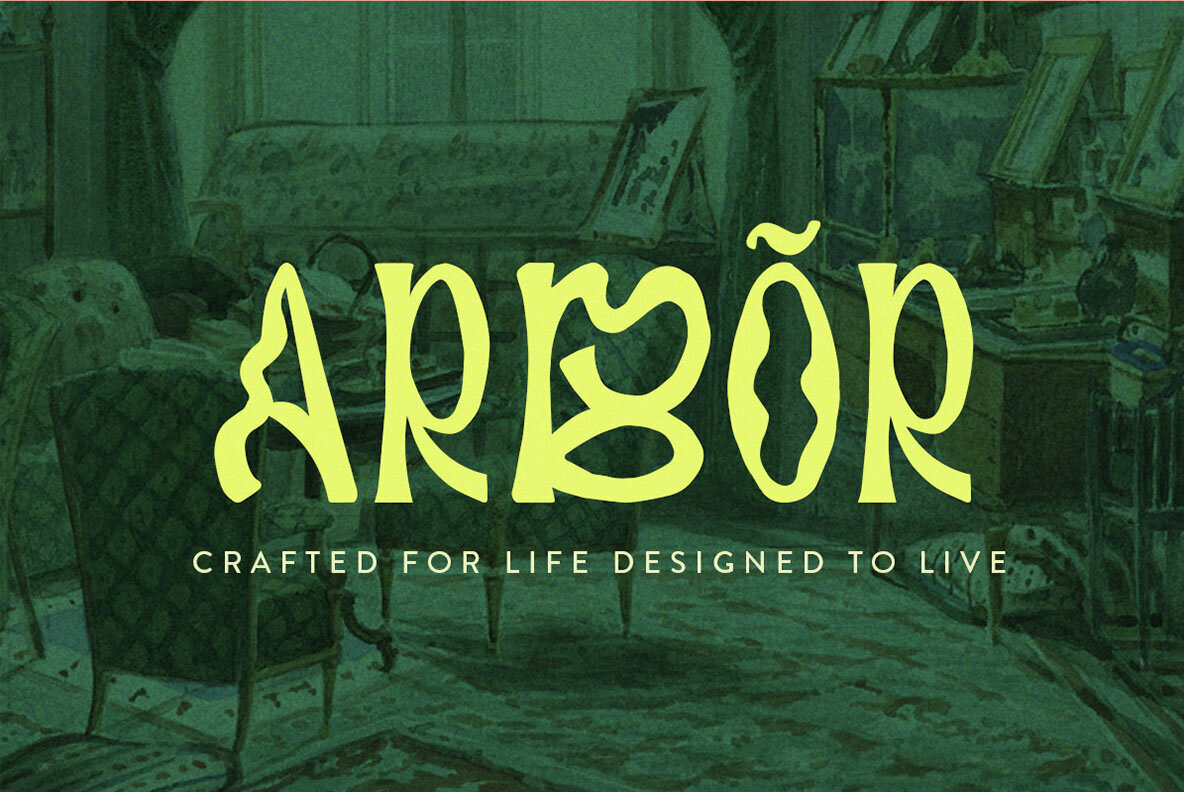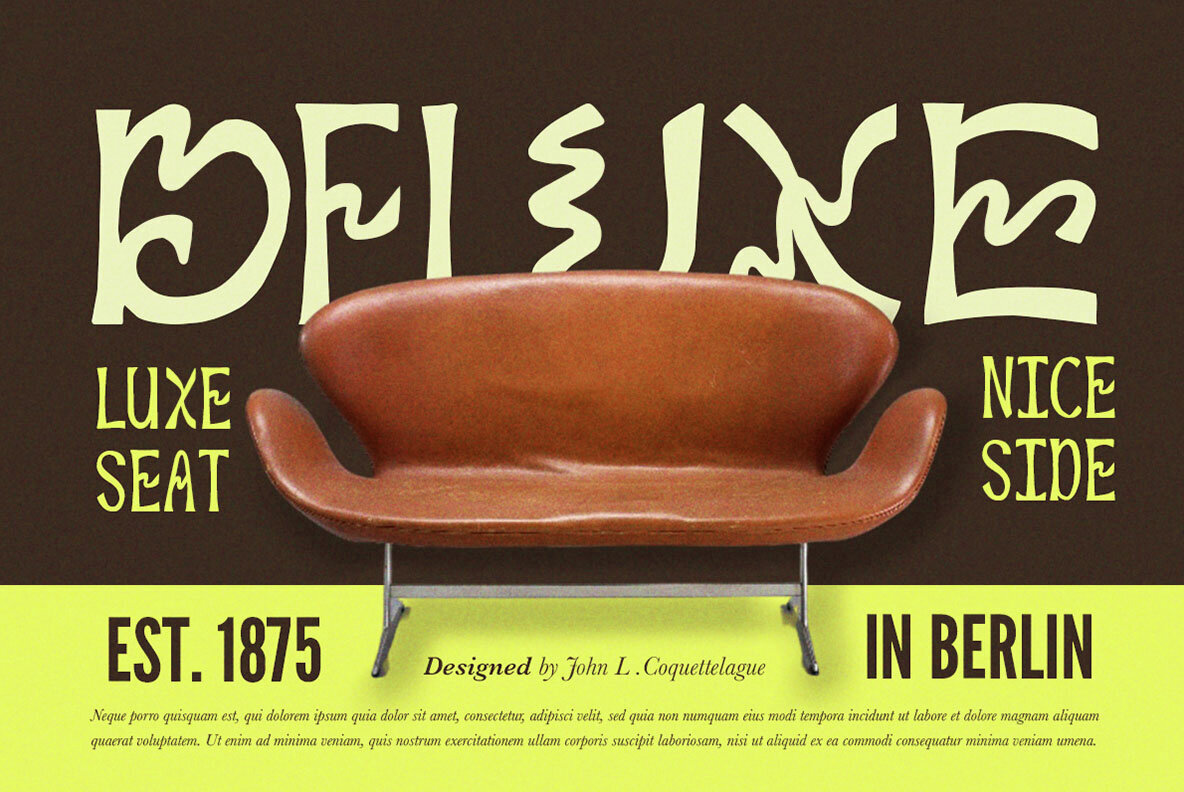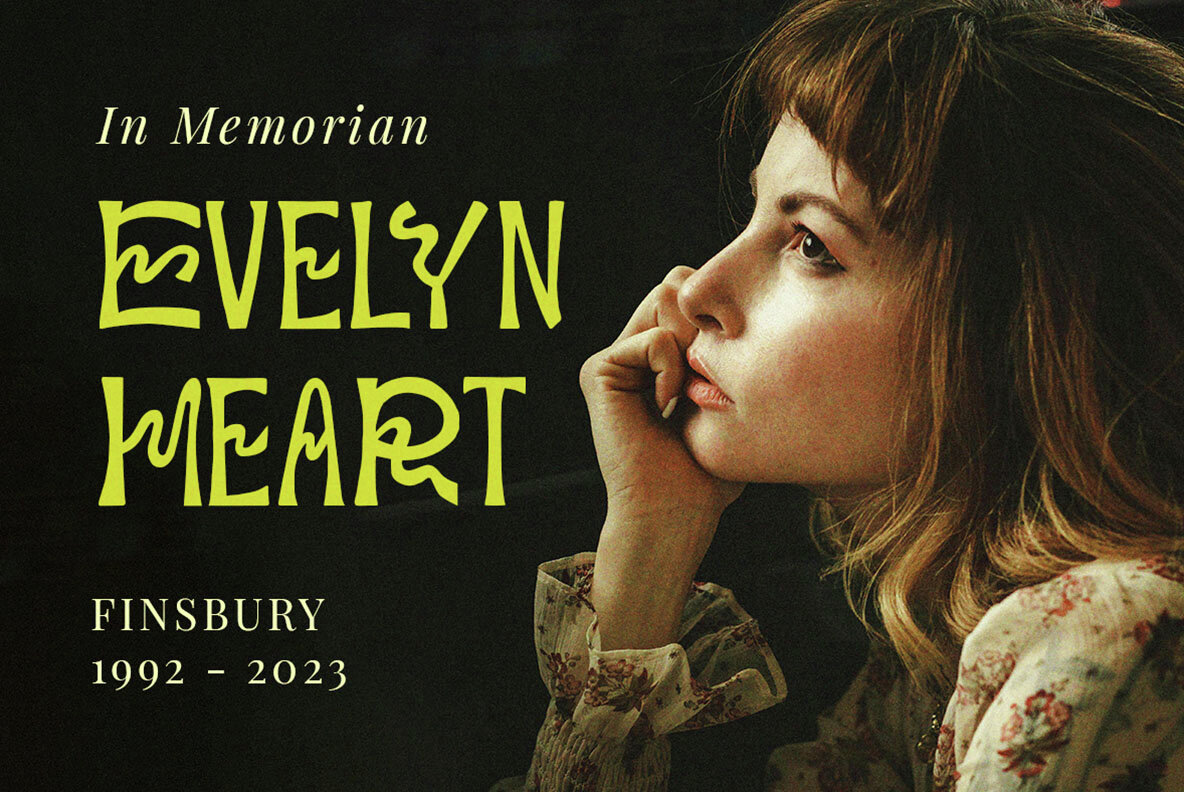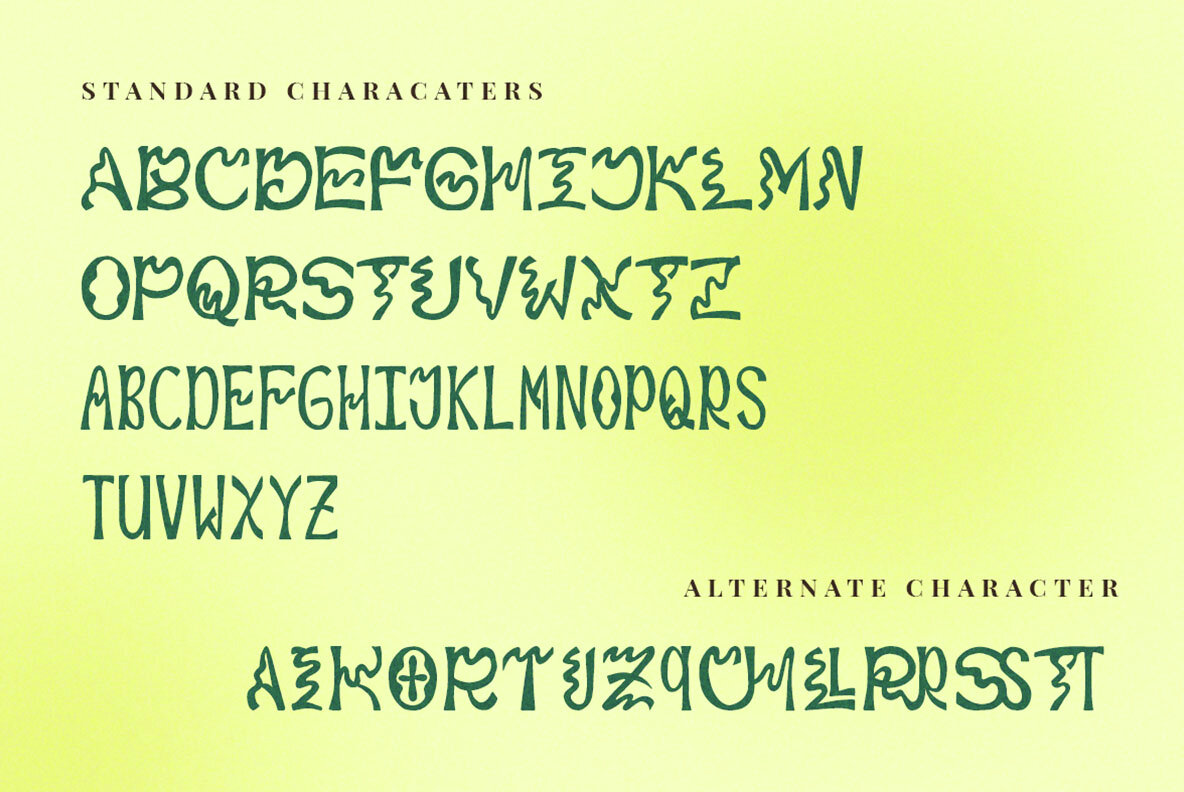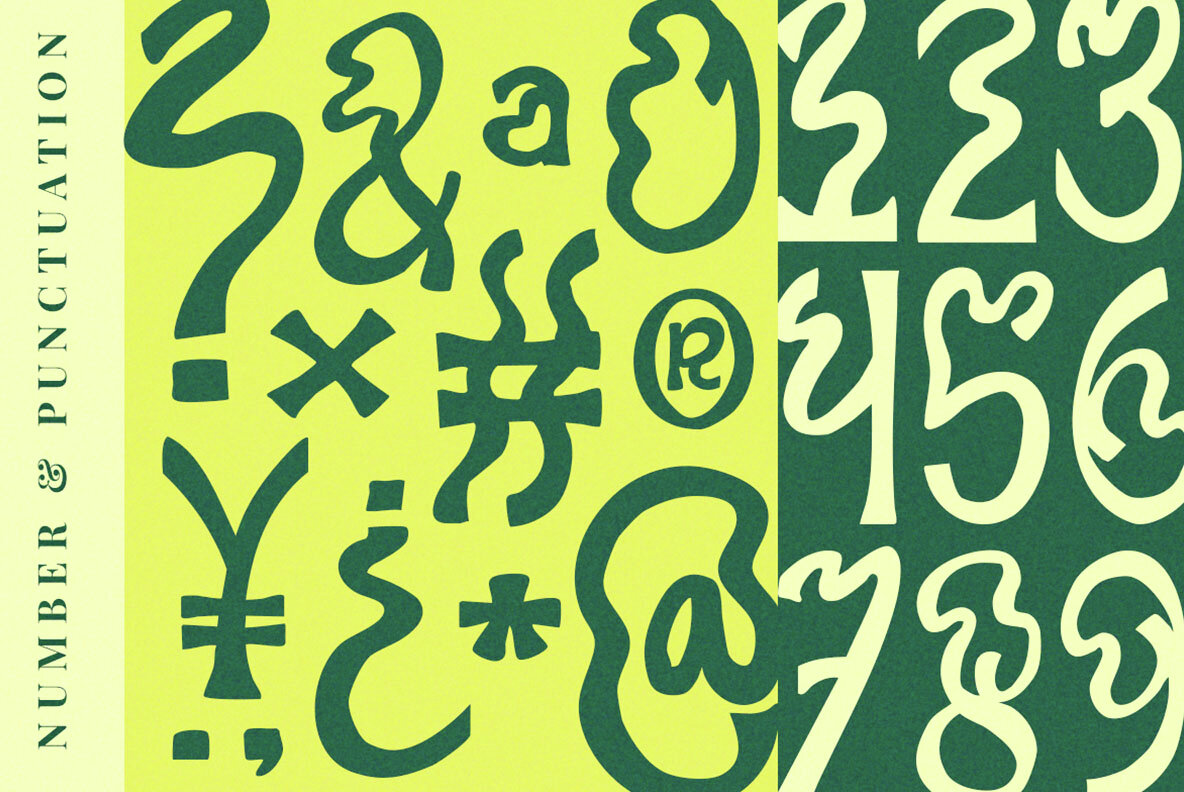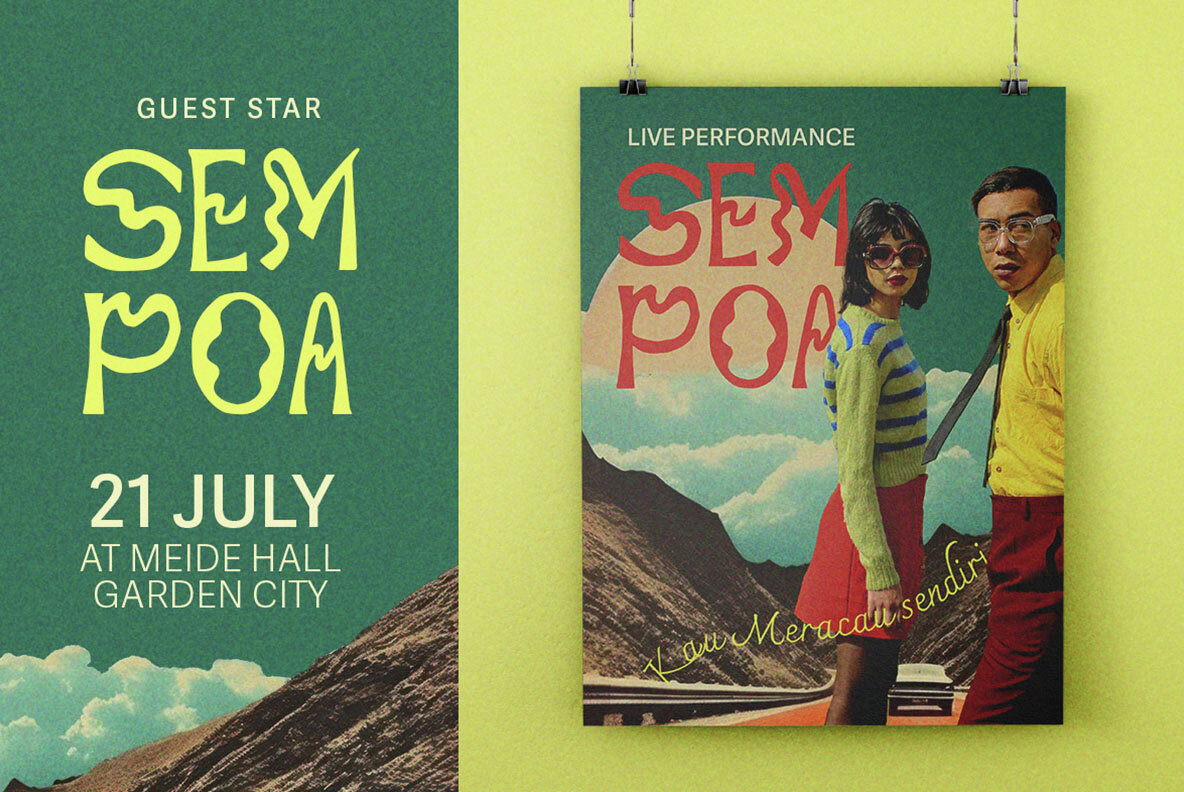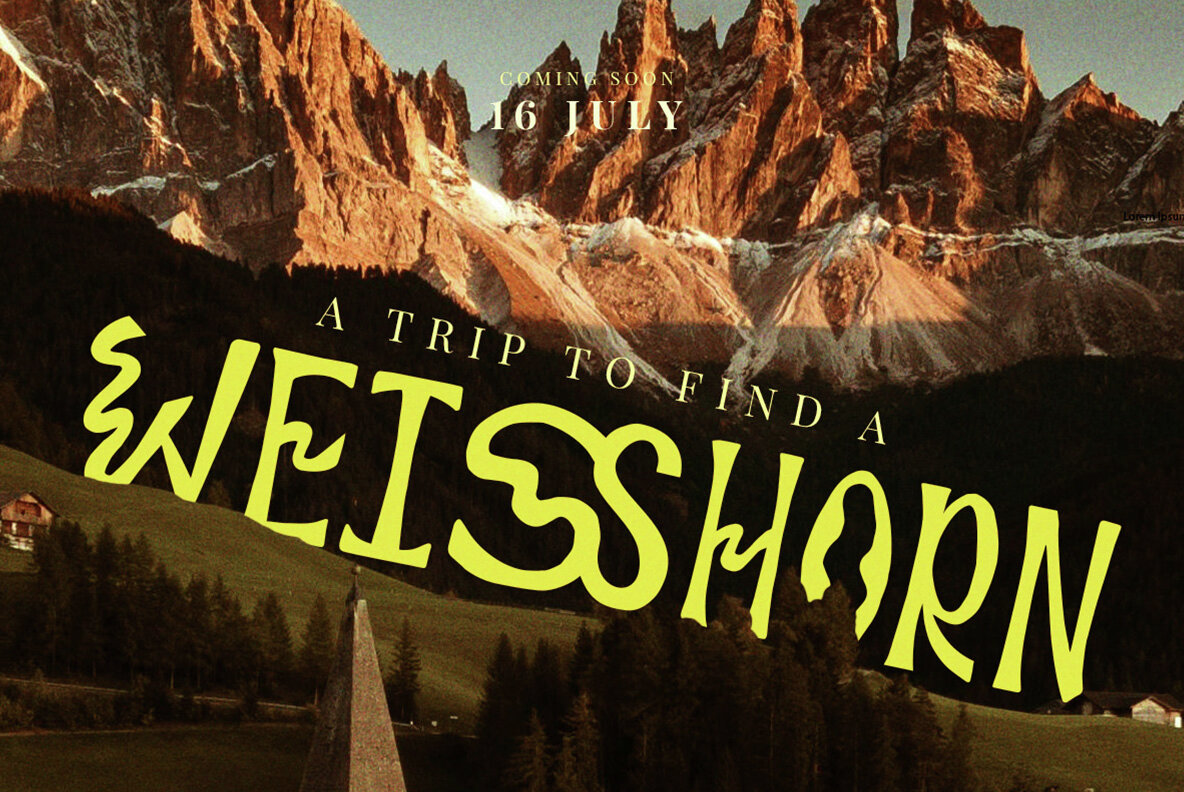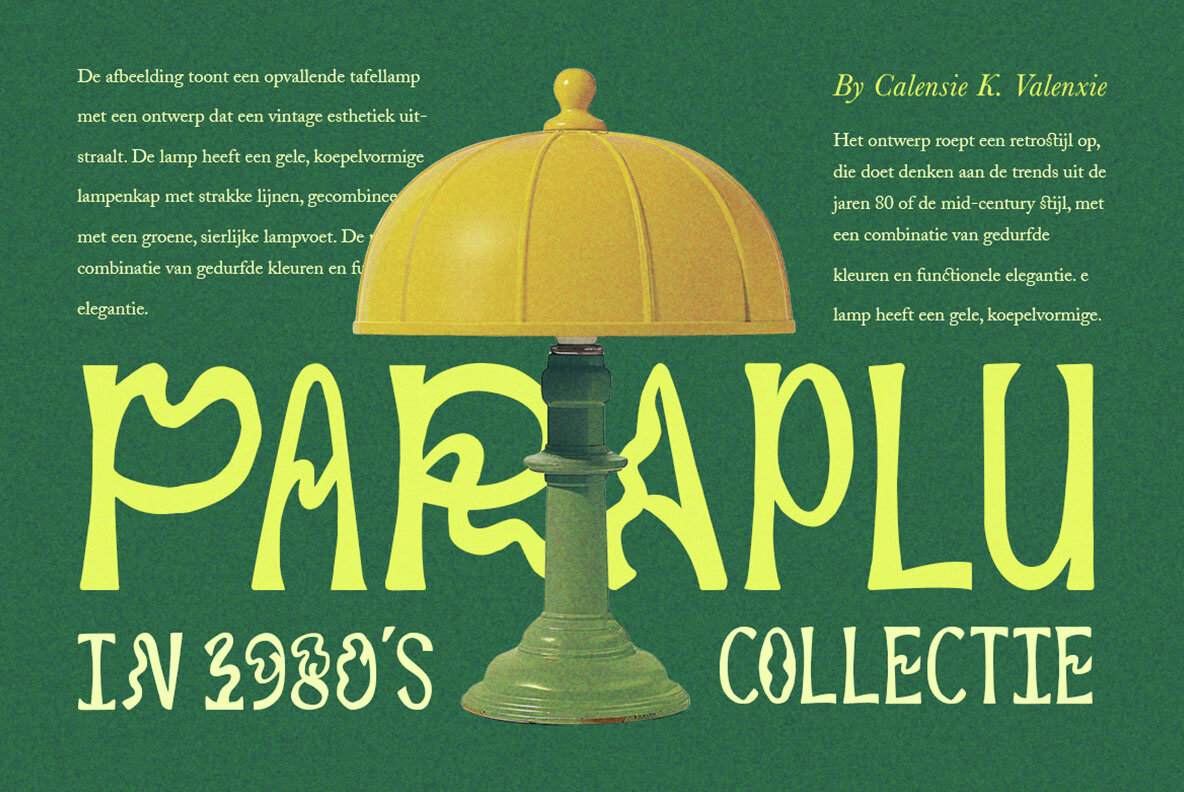
Merrich Font
Merrich is a whimsical mixed display font that combines playful curves with bold, artistic strokes, blending a hand-drawn charm with a touch of sophistication. Its organic fluidity and angular details make it perfect for headlines, branding, packaging, and editorial designs that crave personality and flair. Best showcased in large formats, Merrich transforms text into visual art, making it ideal for creatives looking to make a statement with quirky elegance and unforgettable style.